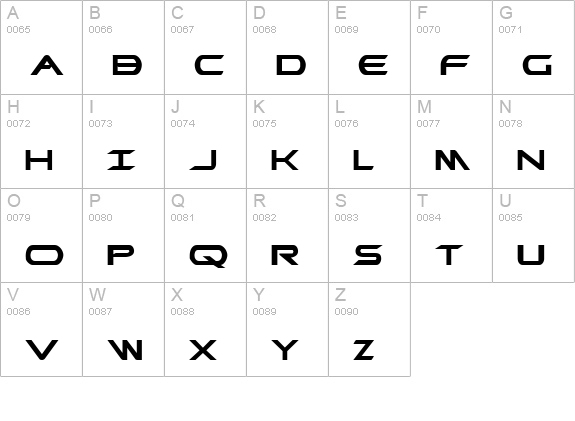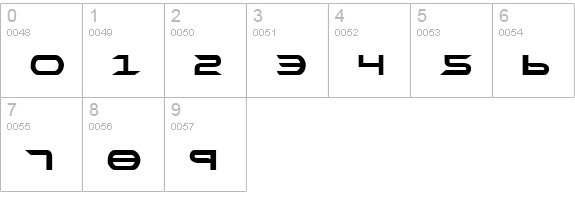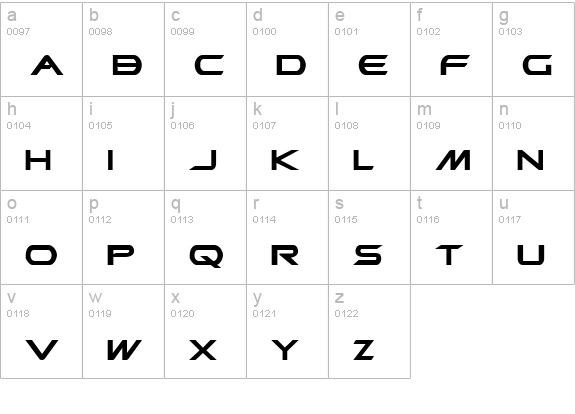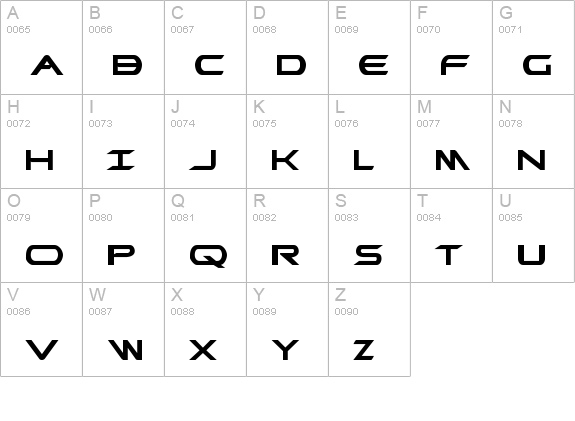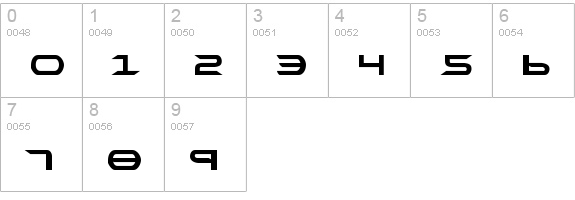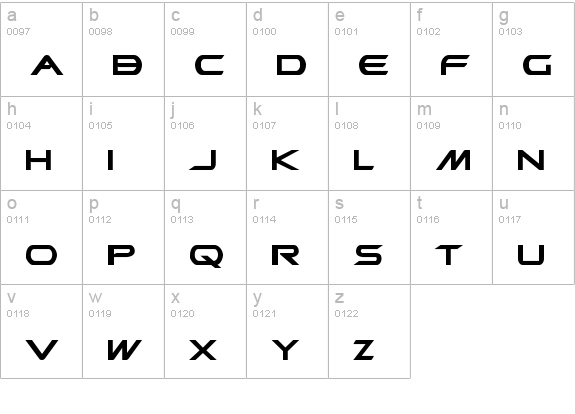
Promethean Bold Expanded is a strong, high-contrast, extended-width variant in the Promethean typeface family \xE2\x80\x94 well suited to headlines, attention-grabbing titles, and strong calls-to-action.
Promethean Bold Expanded is a striking and modern font that commands attention with its bold and impactful design. Its strong lines and expanded characters make it perfect for headlines, banners, and other display purposes where you want to make a statement. Whether used in print or digital media, Promethean Bold Expanded gives your text a bold and confident presence. The best part? Promethean Bold Expanded is available for free download at FontsMarket.com. This means you can easily access this eye-catching font and use it in your projects without any cost. With its versatility and bold aesthetic, Promethean Bold Expanded is sure to elevate your designs and help you stand out from the crowd. Download it today and unleash your creativity with this powerful and free font.